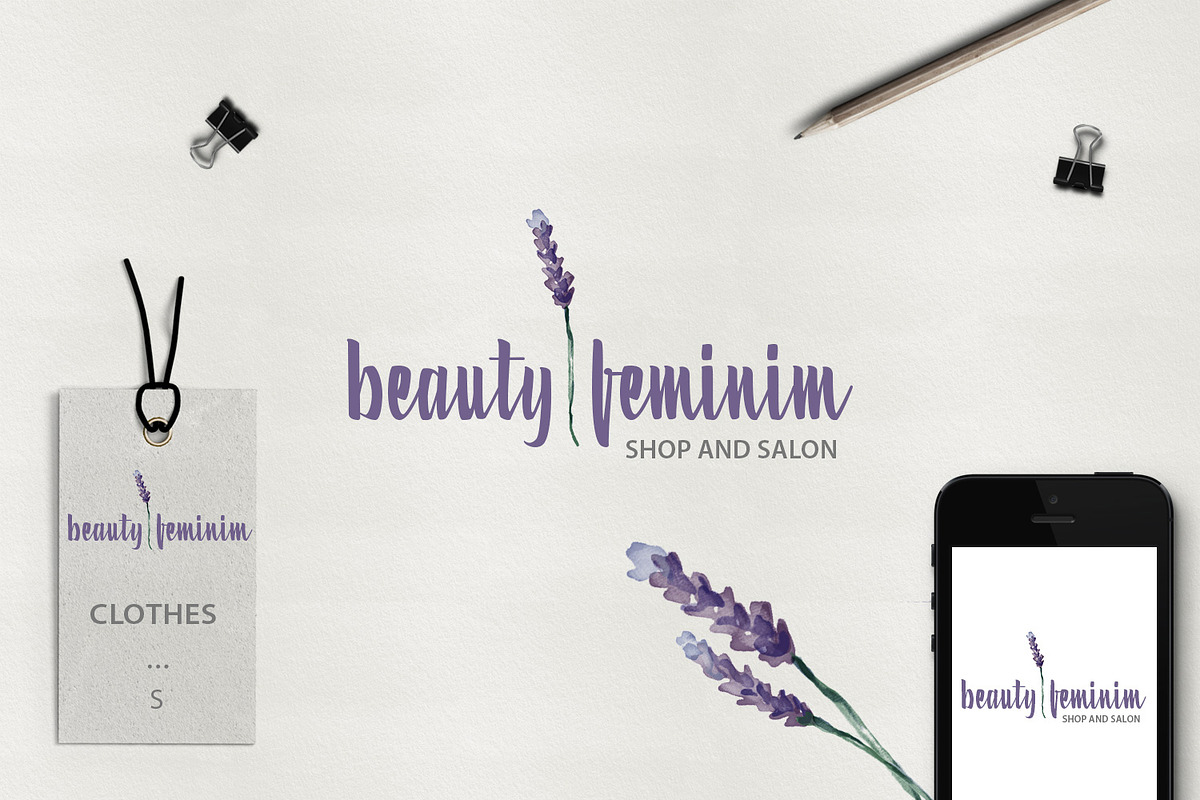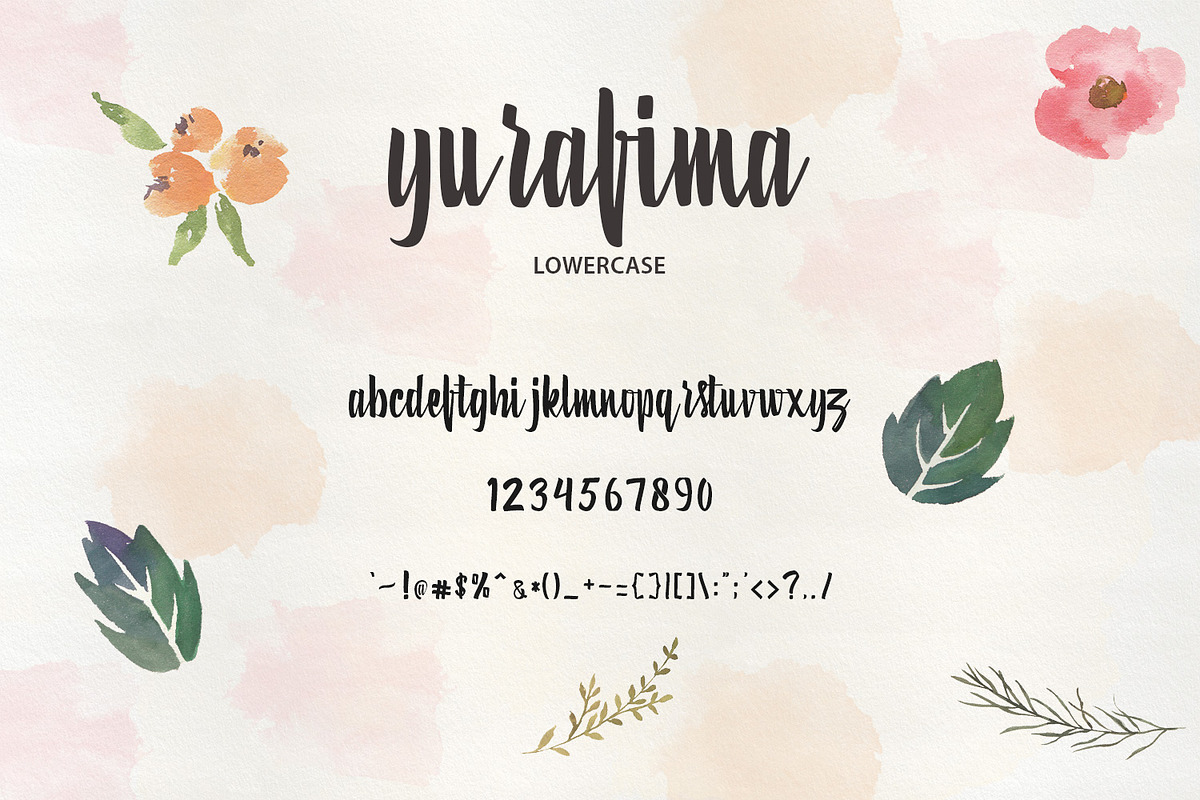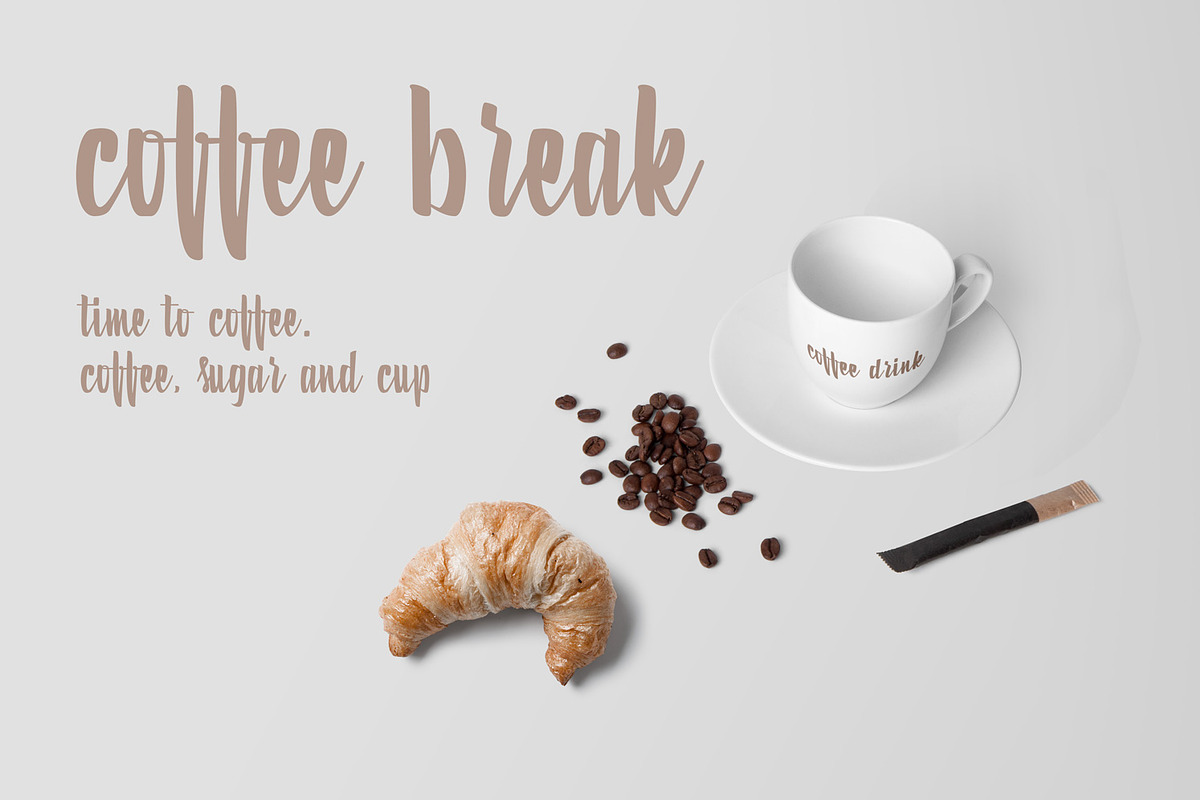
Yurafima font
Yurafima font by bolpent is a font selected for branding, posters, packaging, typography.
- Yurafima font only lowercase, perfect for: poster, wedding, branding, logo, fashion, apparel, letter, invitation, stationery, etc.
Why Yurafima font is worth a look
Yurafima font by bolpent fits naturally into Branding, posters, packaging, typography.